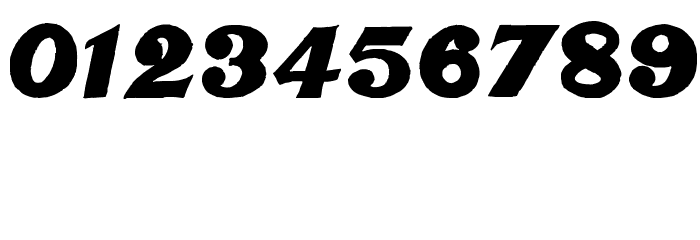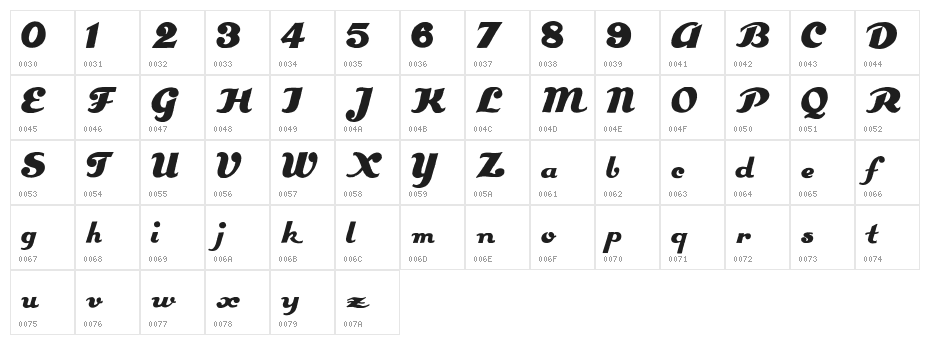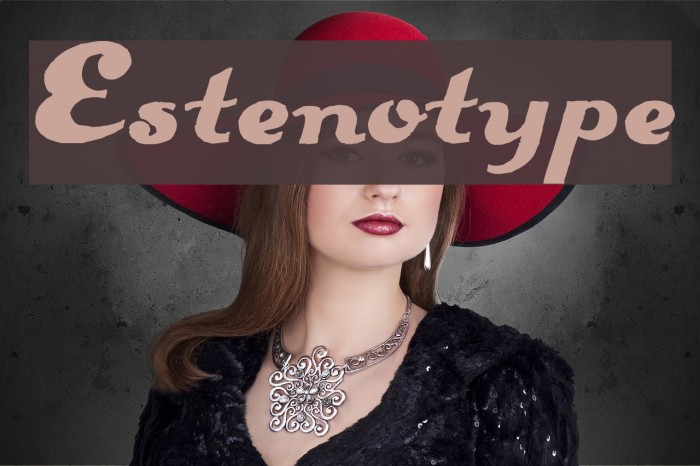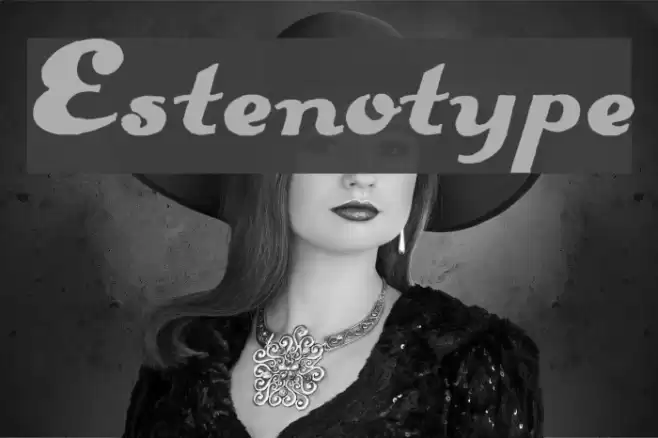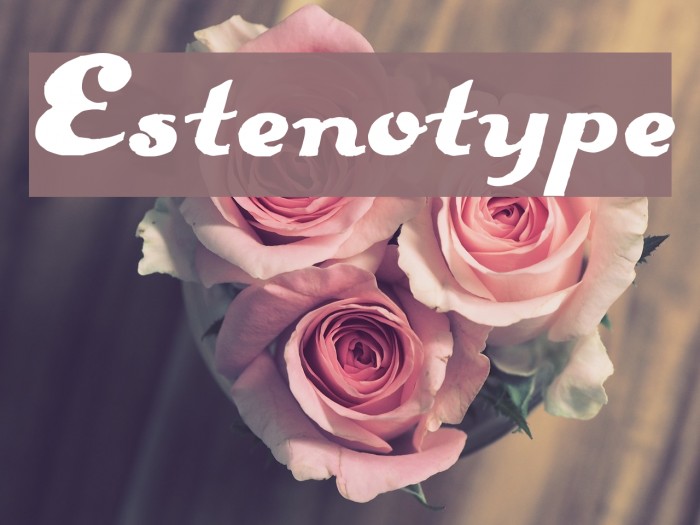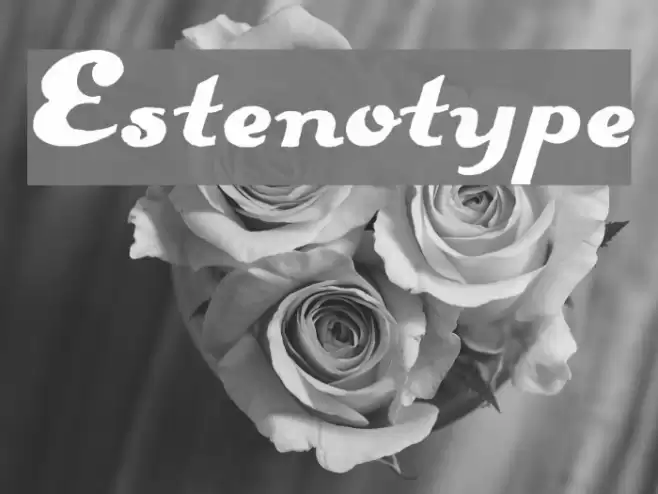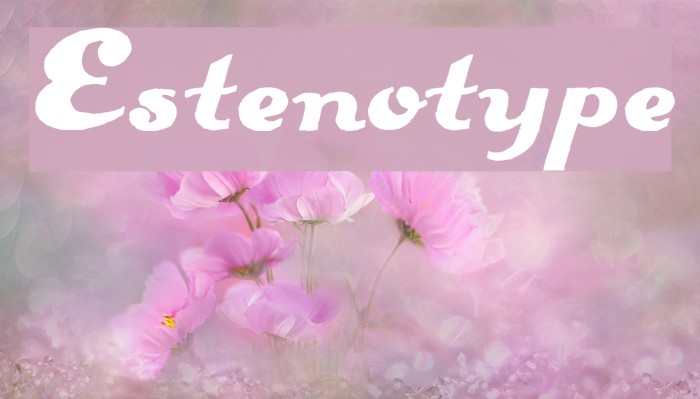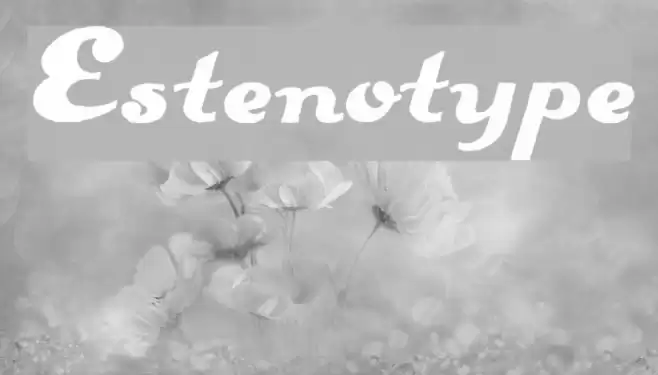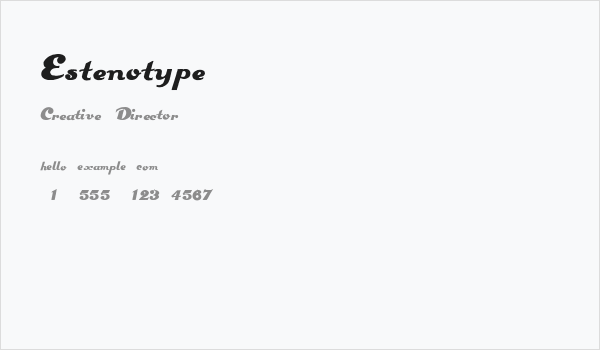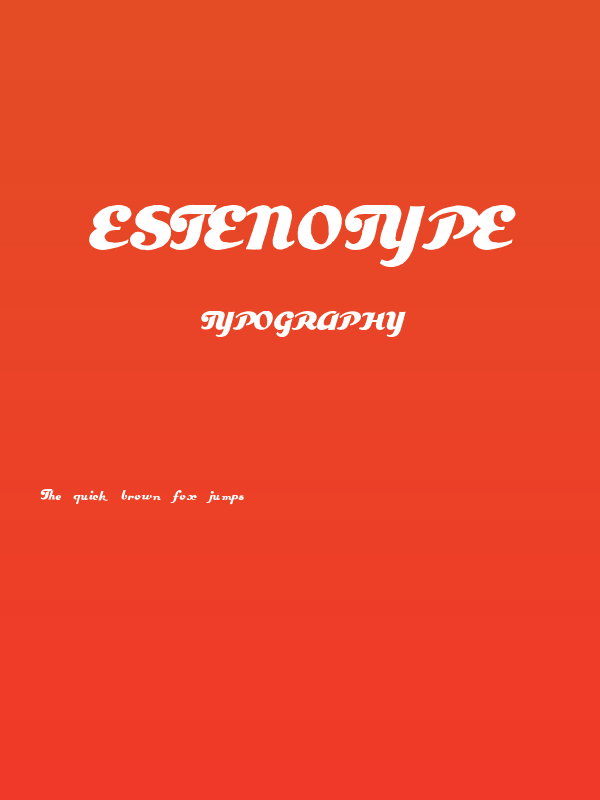
Estenotype Font
Estenotype Description
This font features a bold and dynamic script style with a strong presence. The characters have a flowing, cursive design that combines elegance with a sense of movement. The uppercase letters are slightly more ornate, while the lowercase letters maintain a consistent and smooth flow. The numbers are bold and rounded, matching the overall aesthetic of the font. The special characters integrate seamlessly, maintaining the same bold and fluid style. This font is ideal for creating impactful and stylish designs that require a touch of sophistication and flair.